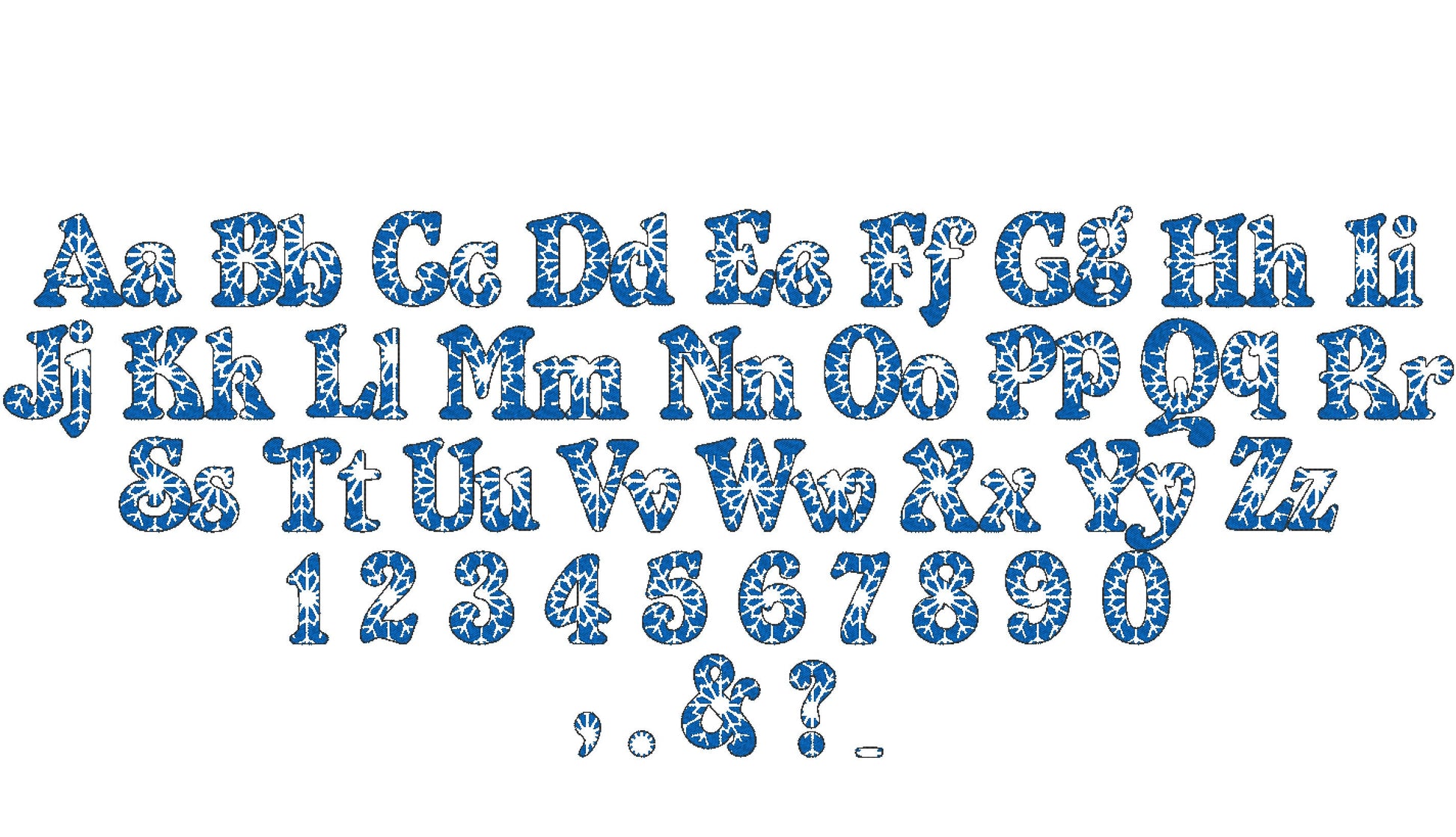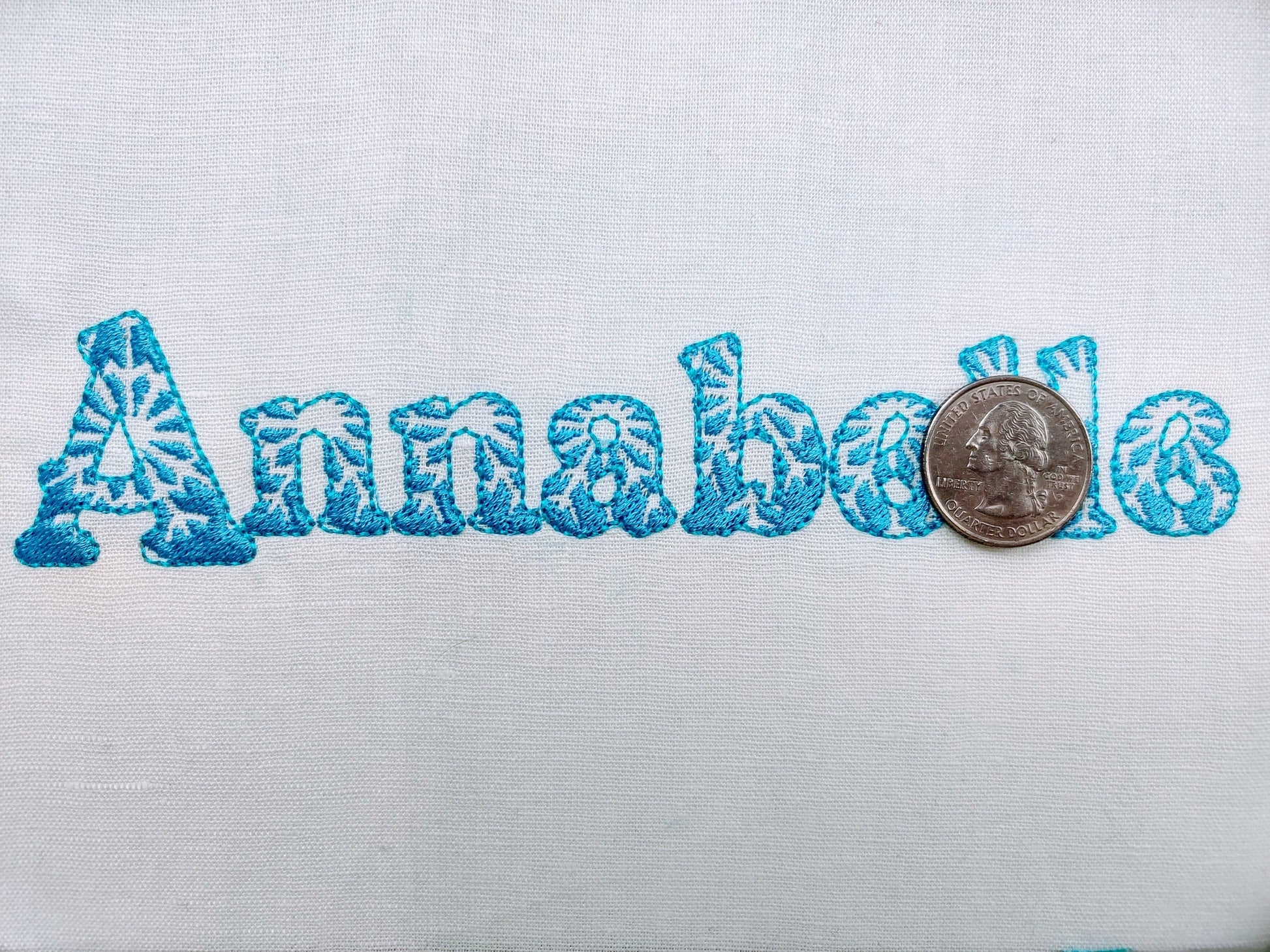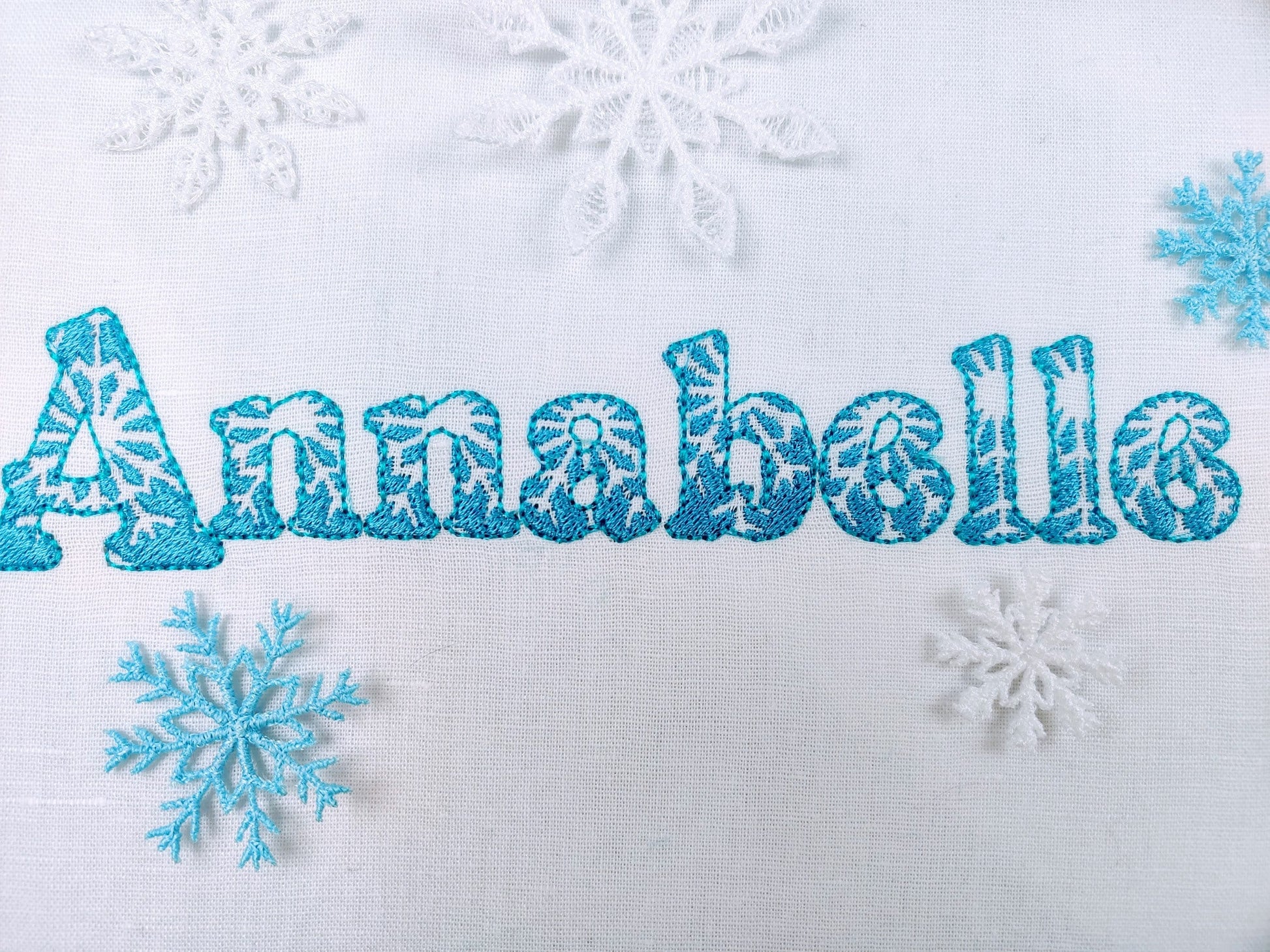
Or click to open the linkA frosty snowflake font for Christmas and winter. Pretty for names on stockings, ornaments, sweaters and holiday gifts.
The letters come in five sizes: 1.3, 1.6, 1.8, 2 and 2.5 inches. Each letter is decorated with snowflakes. Includes uppercase and lowercase letters, numbers 0 to 9 and punctuation.